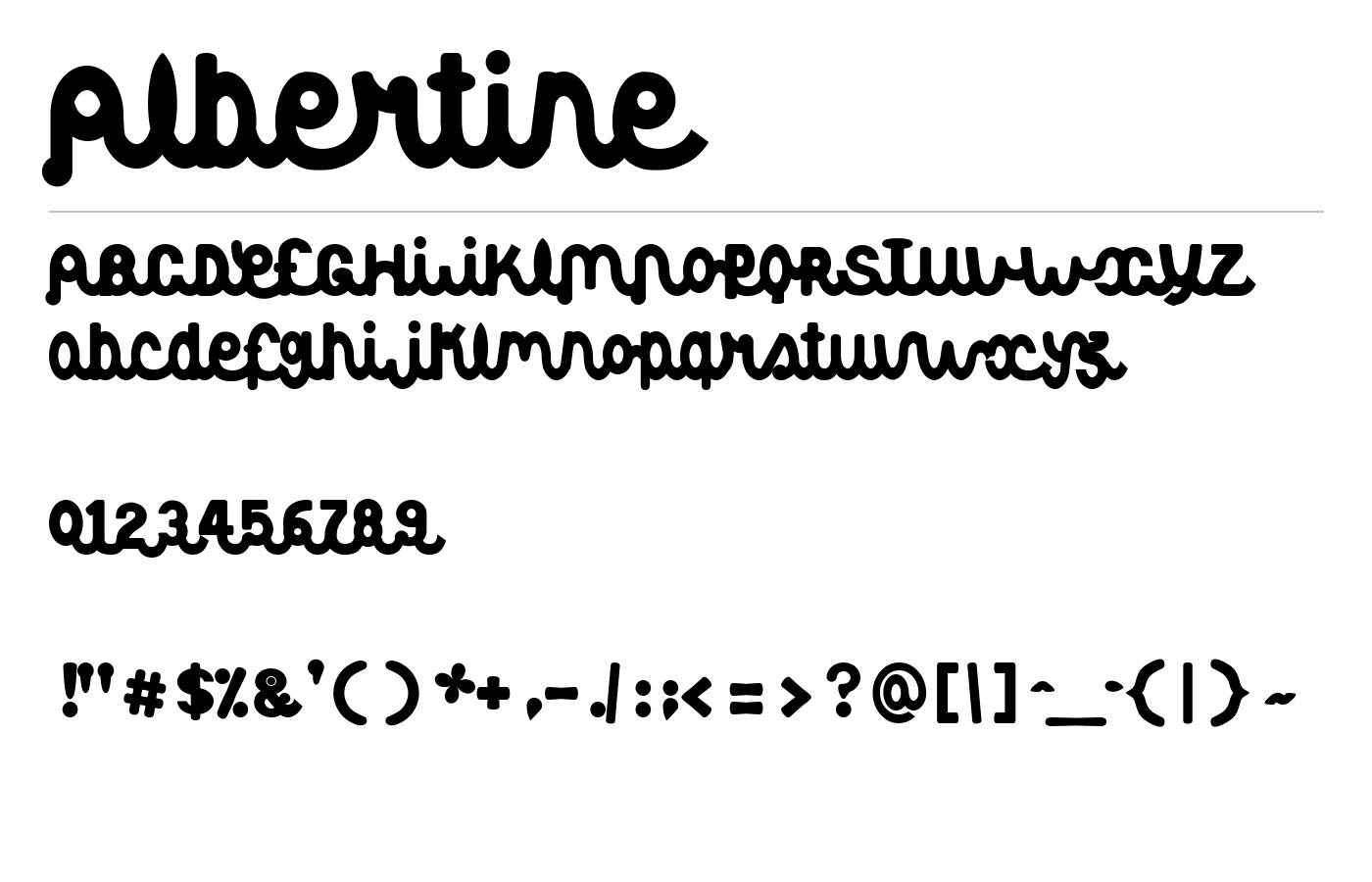
Albertine is a unique, playful script font with bold, rounded strokes that create a friendly and approachable feel. Its even weight and continuous, looping forms suggest a casual handwritten style that works well for creative and informal branding, packaging, and headline uses where personality and warmth are desired. This font shines in designs that benefit from a fun and distinctive aesthetic, adding charm and character without sacrificing readability.
Albertine Font
About Albertine Font
| Font family | Albertine Font |
| Designer | paintblack |